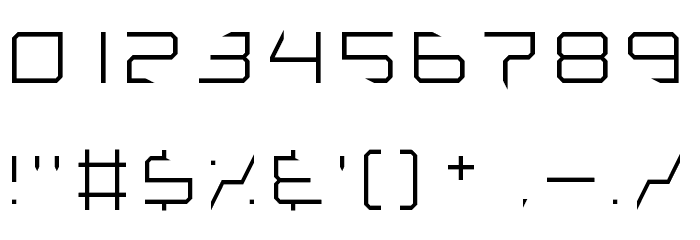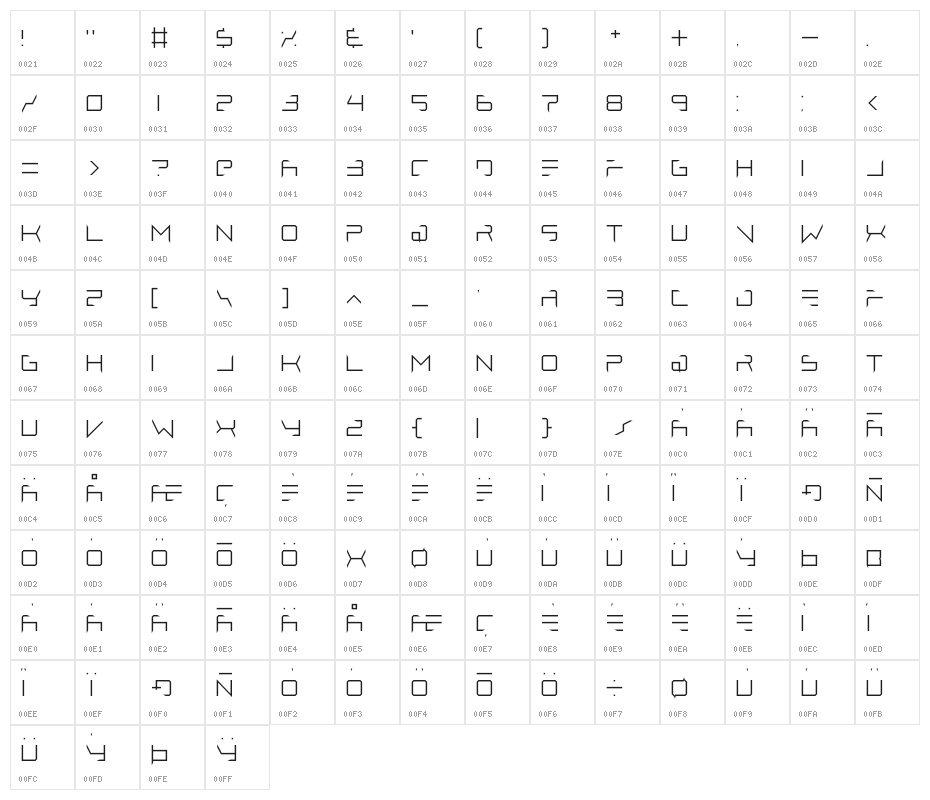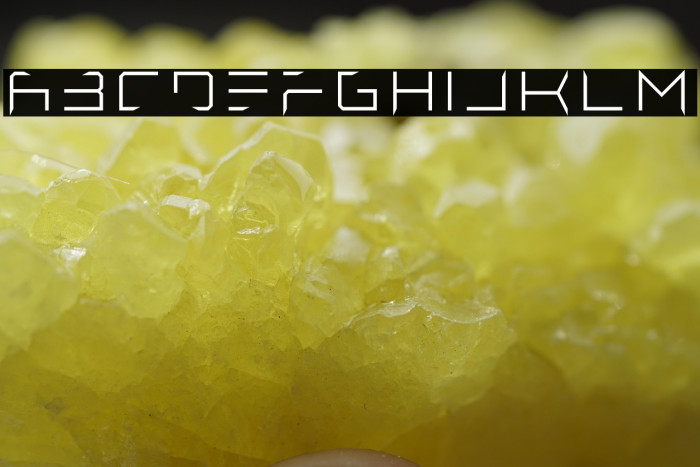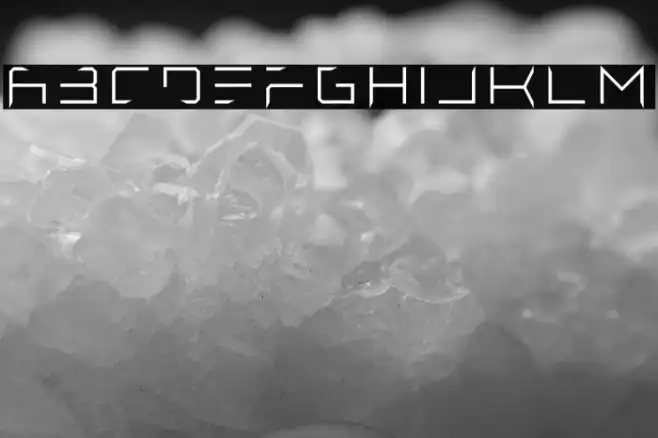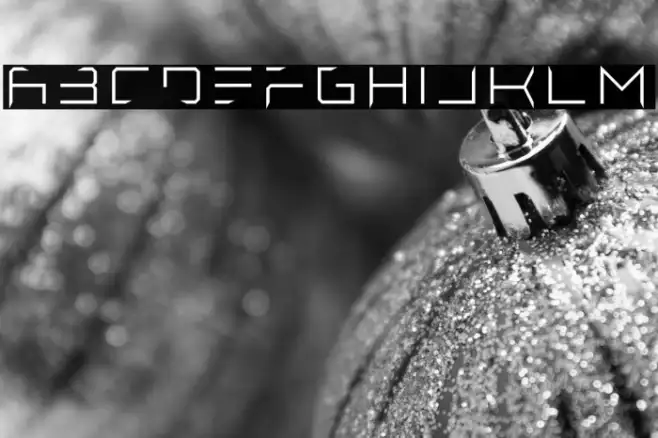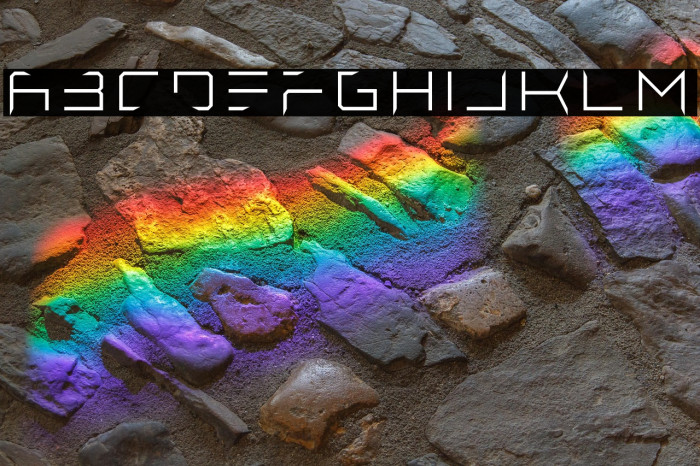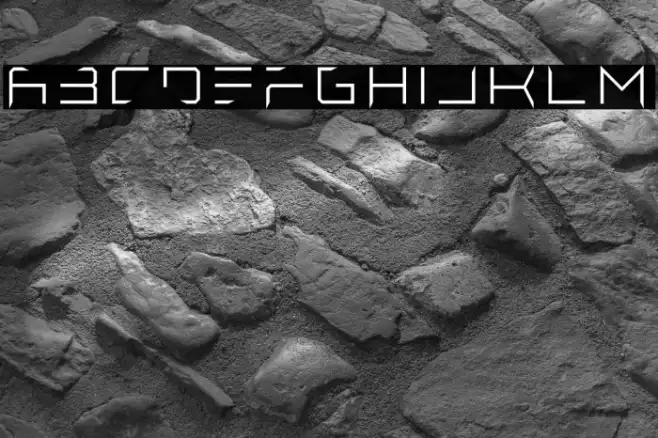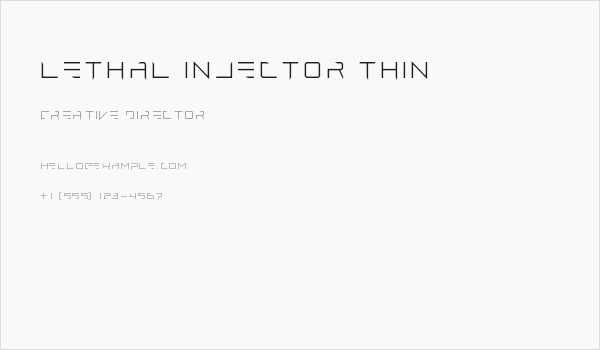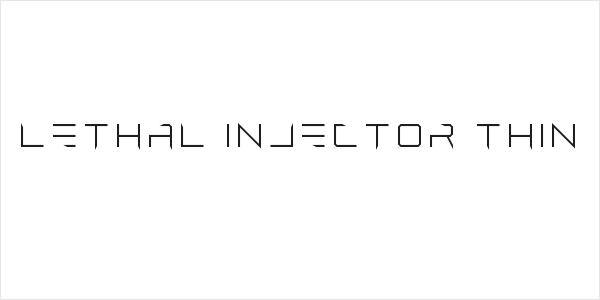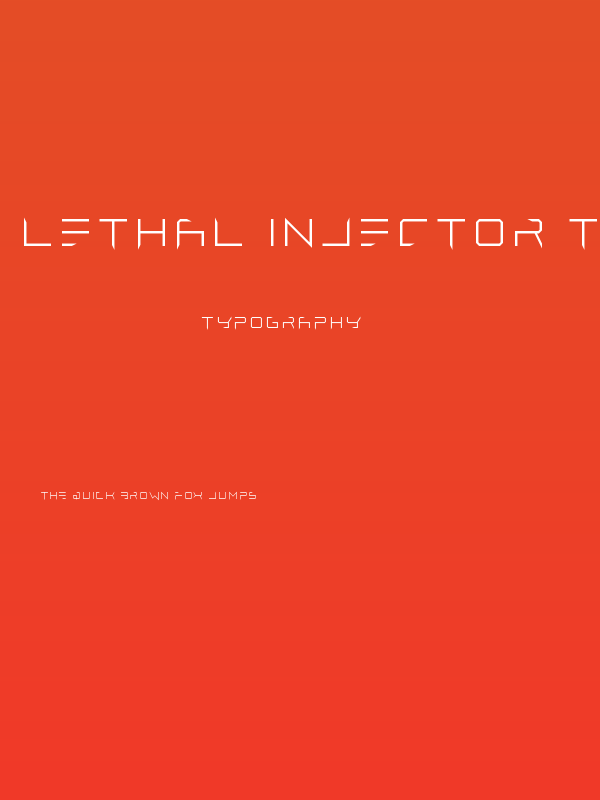
Lethal Injector Thin Font
Lethal Injector Thin Description
This font features a futuristic and angular design, characterized by sharp edges and geometric shapes. The letters are constructed with a minimalist approach, giving them a sleek and modern appearance. The uppercase and lowercase letters maintain a consistent style, with unique cuts and angles that create a sense of movement and dynamism. Numbers and special characters follow the same design principles, ensuring uniformity across all glyphs. The font's thin strokes contribute to its lightweight and airy feel, making it suitable for digital and print media where a contemporary and edgy look is desired.
| Proposed Projects | Ideal for sci-fi themed projects, tech branding, video game interfaces, and modern posters. |